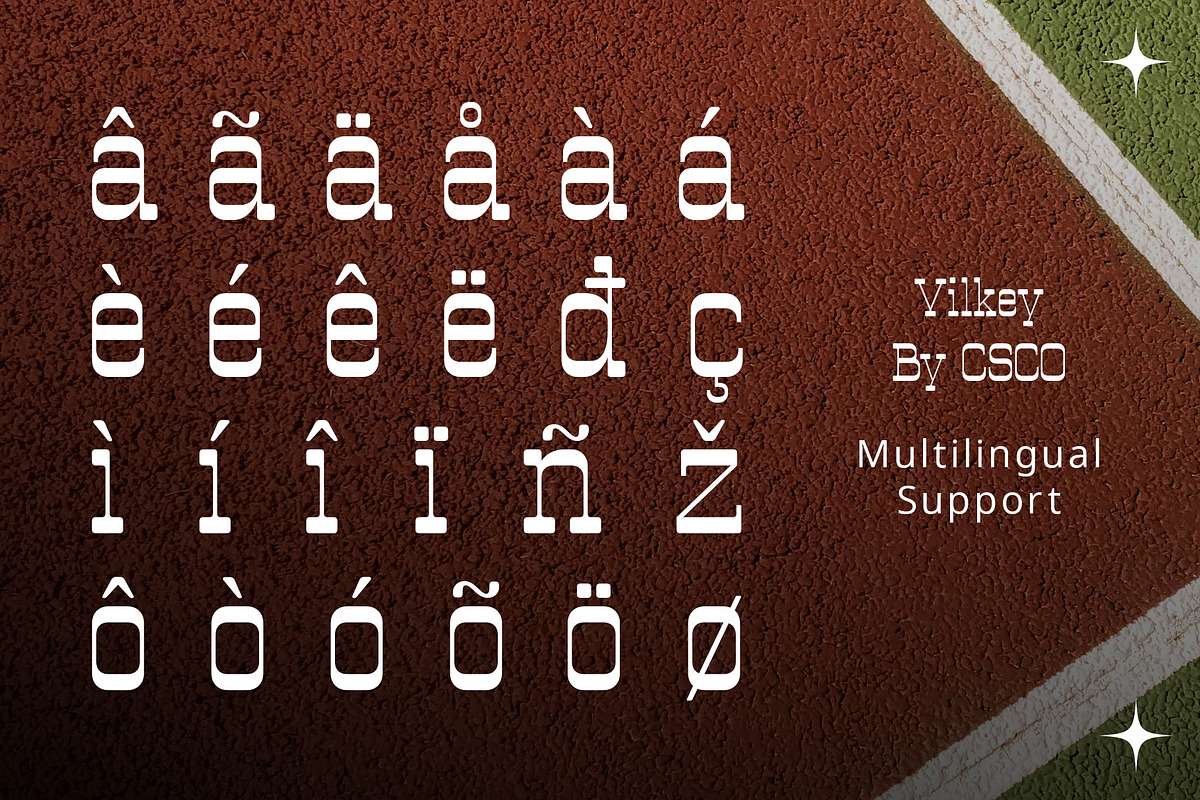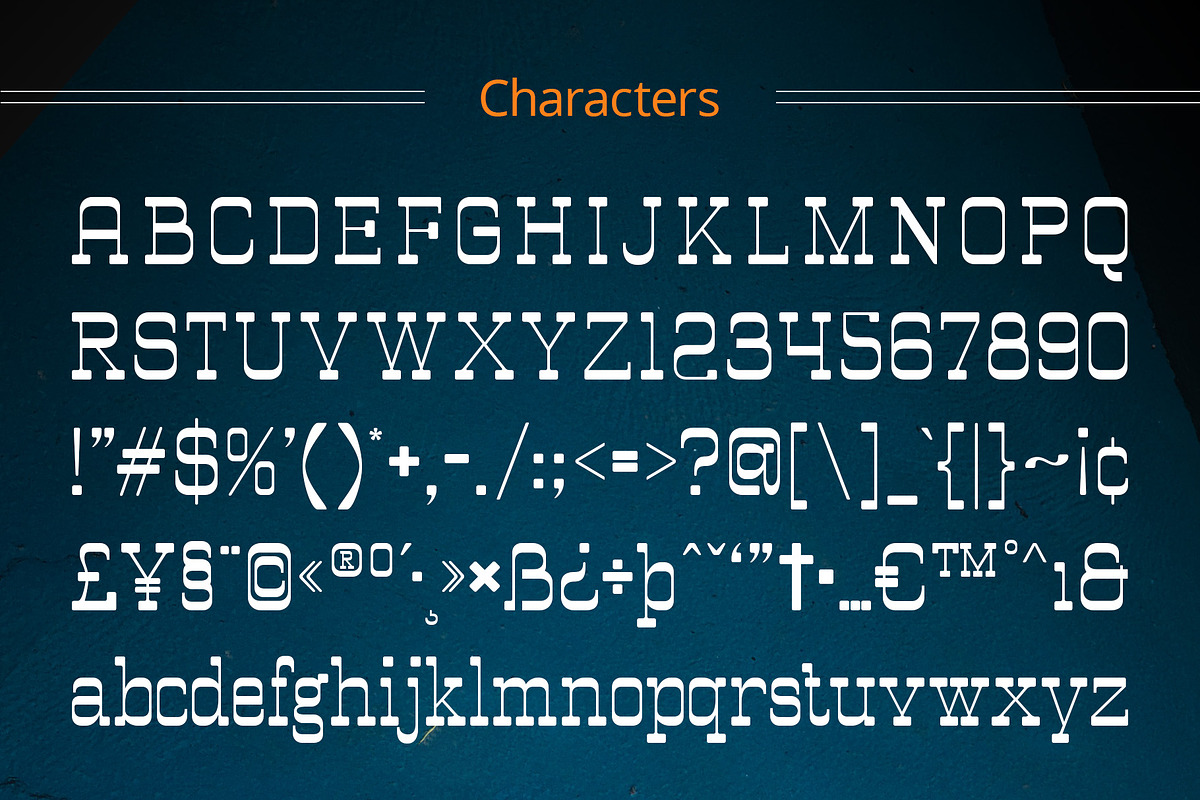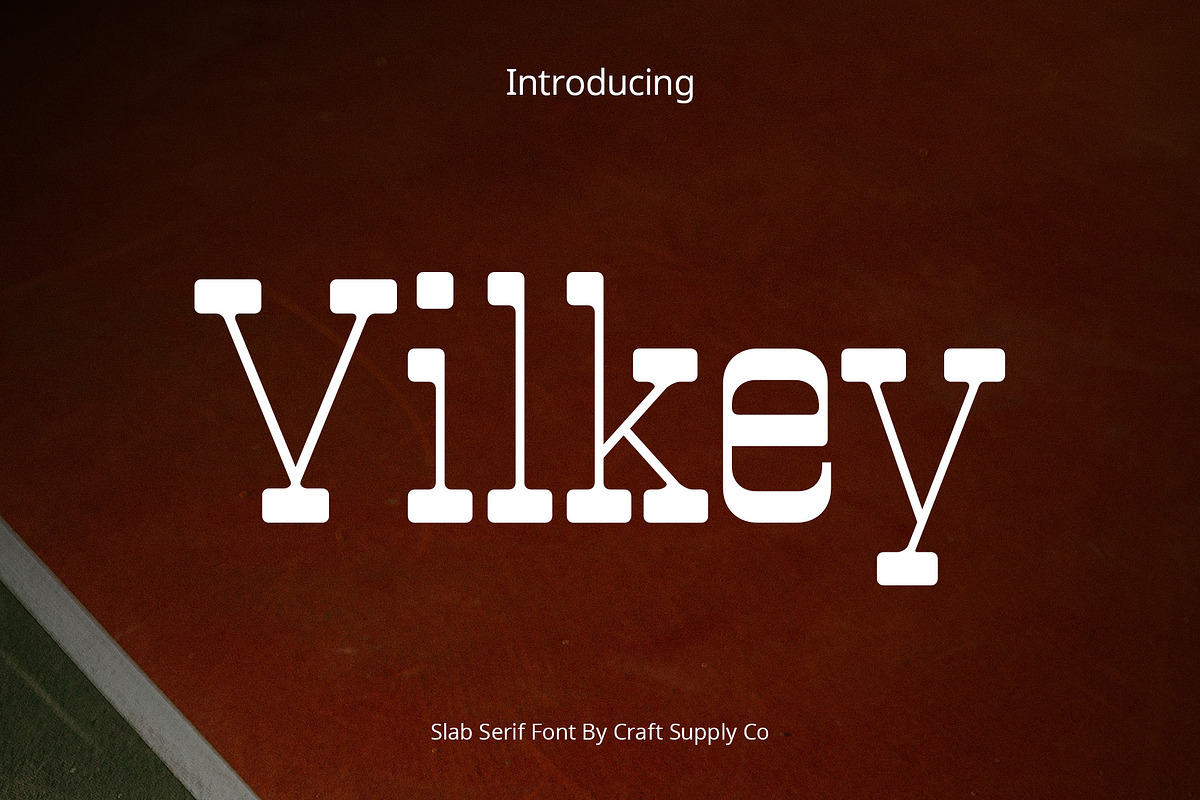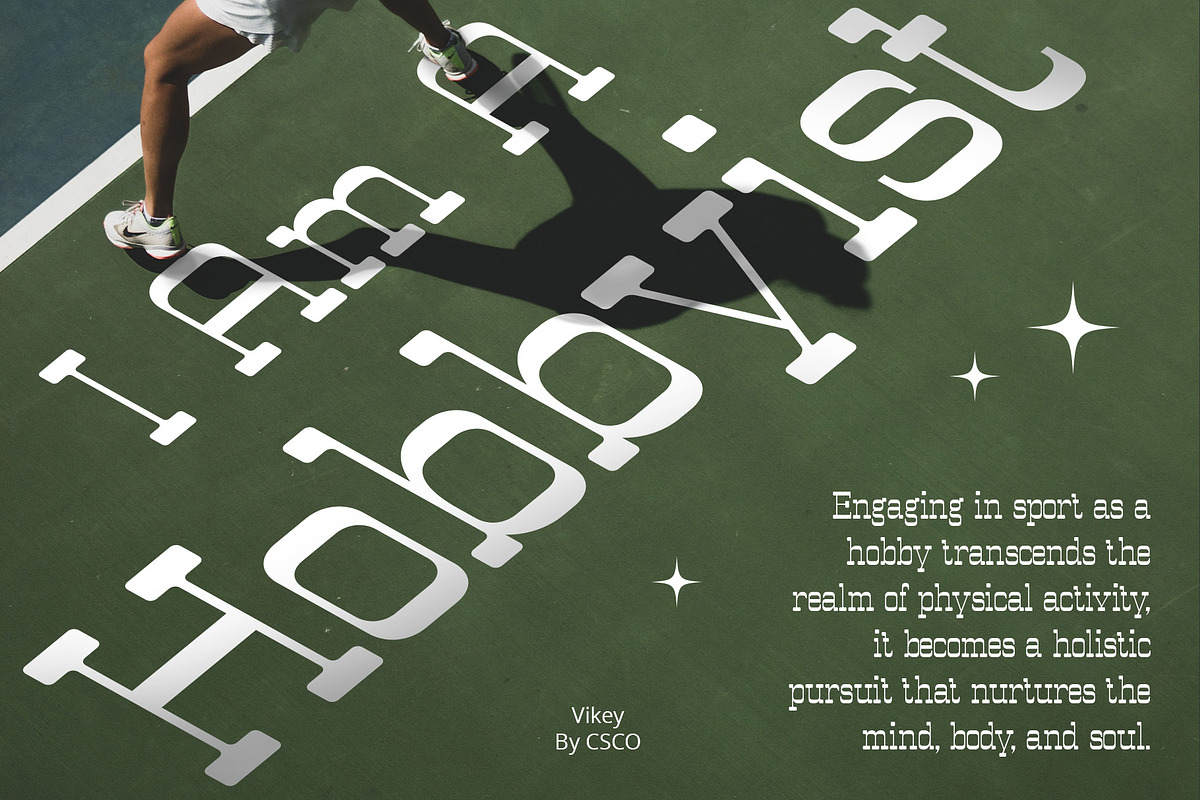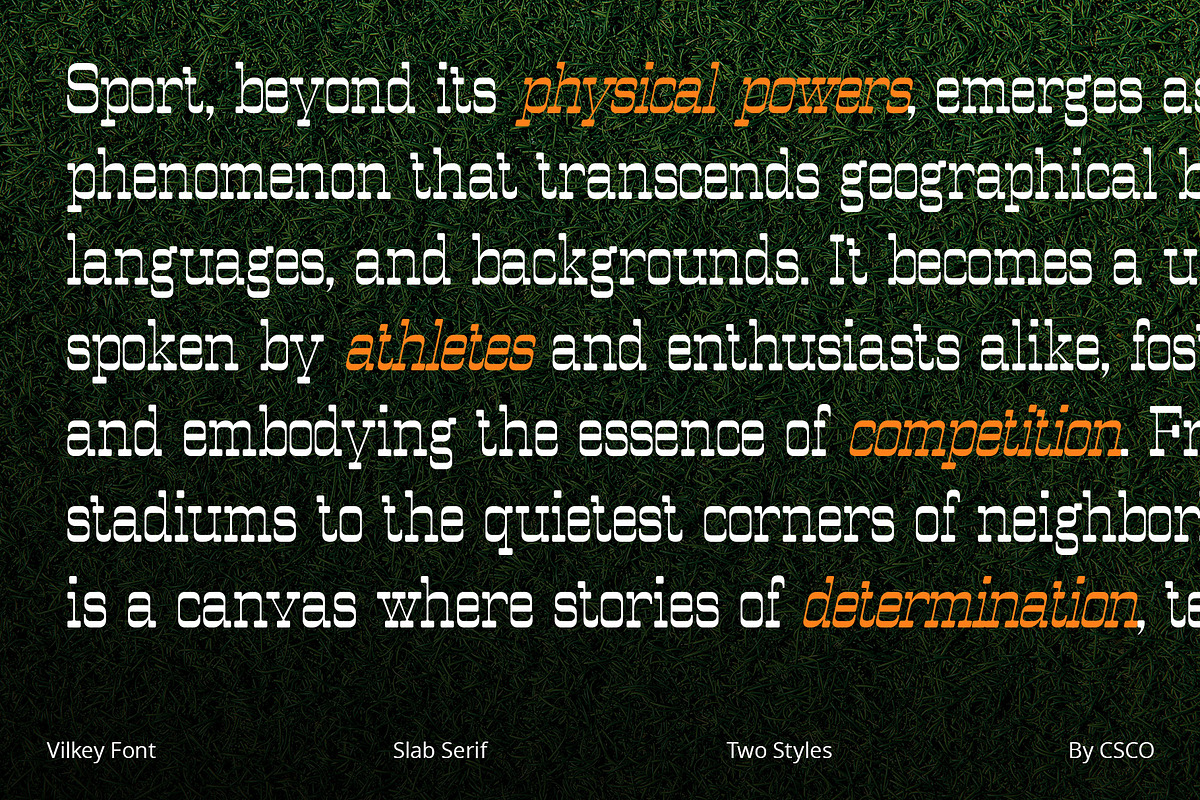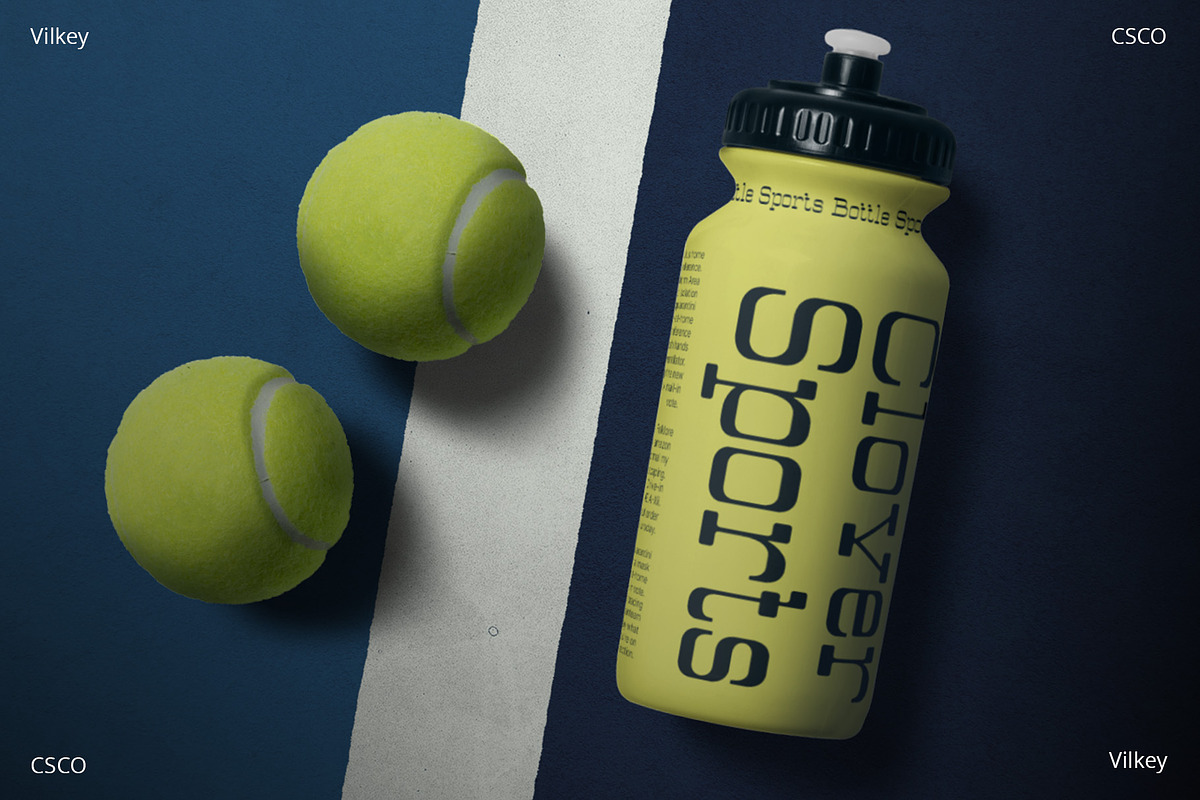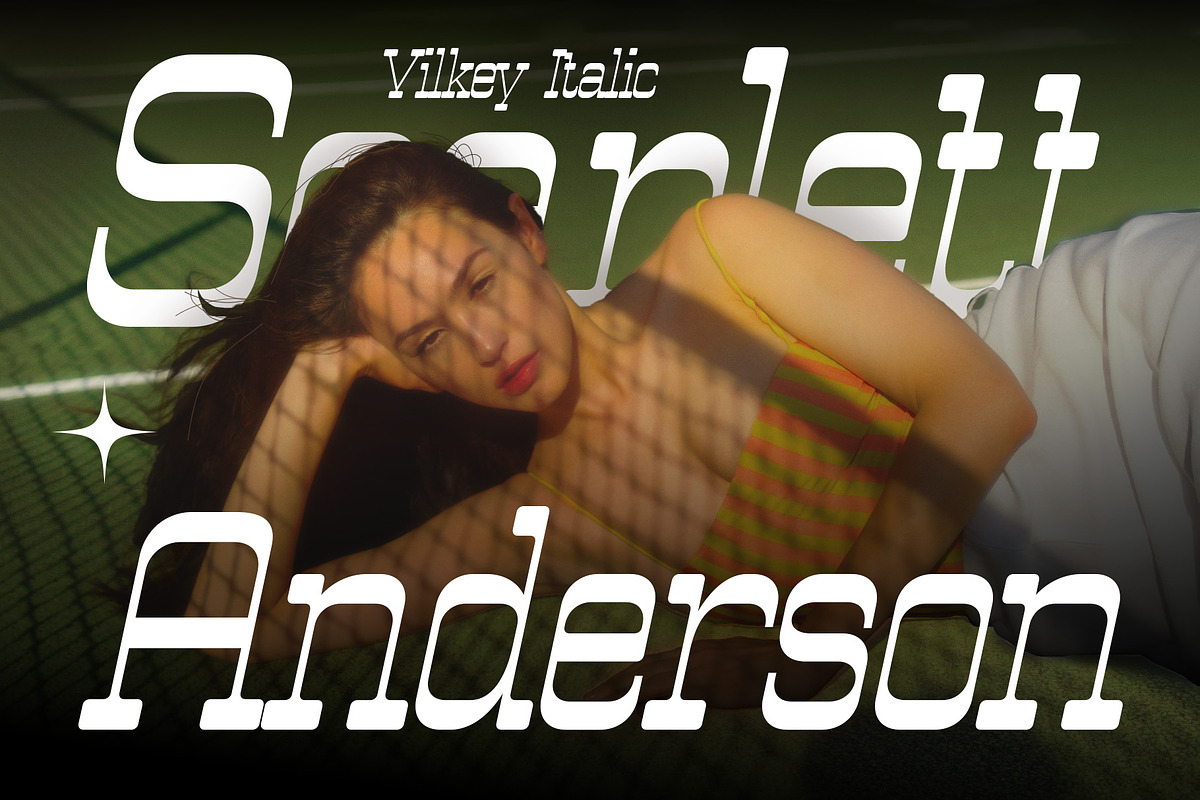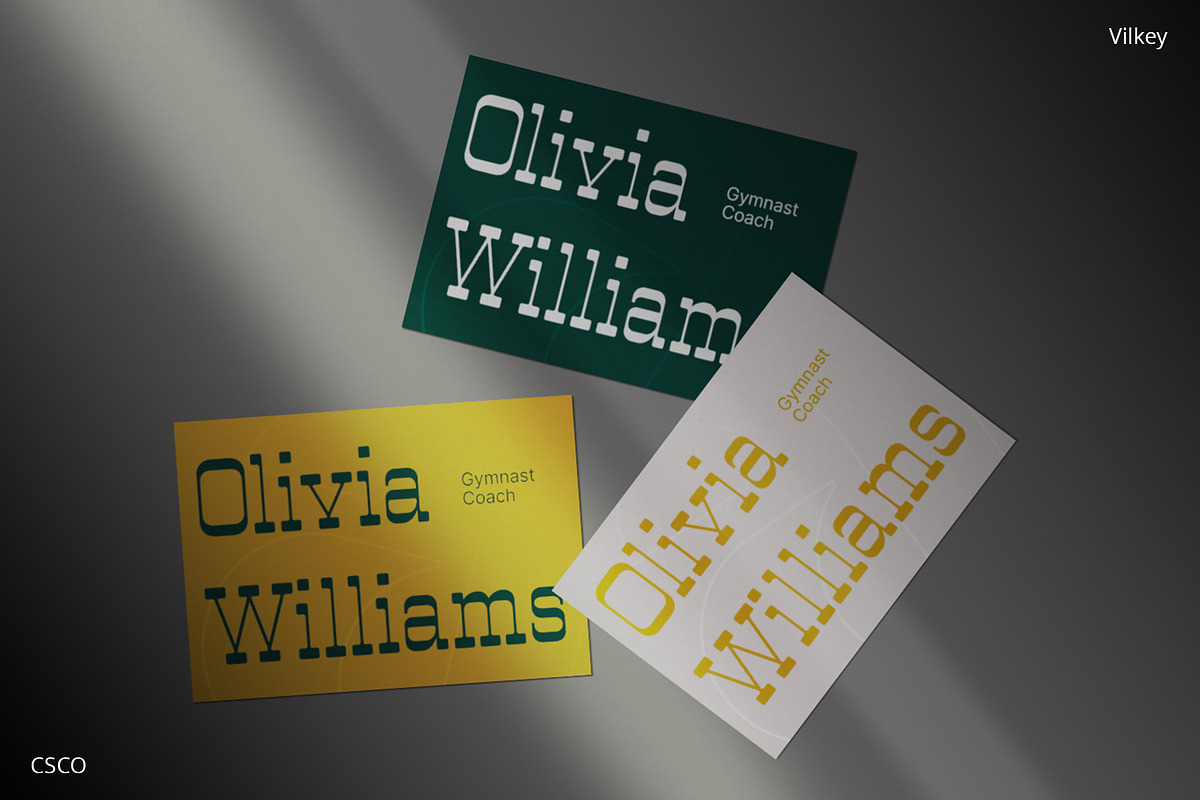
Vilkey – Slab Serif
Vilkey – Embodying Sporty Vibes in Slab Serif
Dynamic Typography for Sports Enthusiasts Vilkey, a slab serif font, captivates with its sporty nuances, making it a dynamic choice for projects related to athletics and sports culture.
Bold and Impactful Letterforms The robust and impactful letterforms of Vilkey exude strength, mirroring the intensity and vigor associated with the world of sports.
Versatility Across Sporting Platforms From team logos to event posters, Vilkey effortlessly adapts, ensuring your sports-related designs are visually striking and memorable.
Energizing Design Elements Vilkey’s design elements resonate with the energy of sports, making it a go-to choice for projects that demand a bold, athletic aesthetic.
In Conclusion Incorporate Vilkey into your designs for a sporty edge that communicates strength and dynamism. Let your typography echo the passion and excitement of the sports world with Vilkey slab serif font.
- Vilkey Regular
- Vilkey Italic